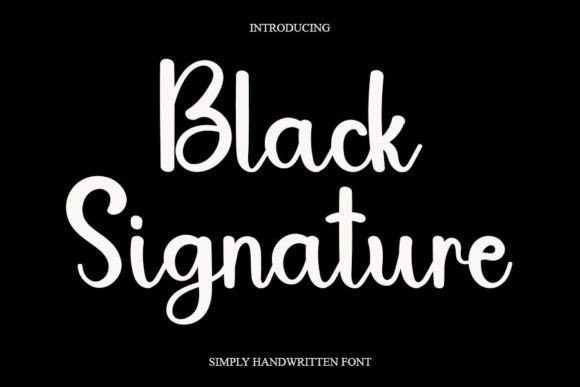
The Magic of Handwritten Fonts: Discovering Black Signature Font
Have you ever found yourself doodling in a notebook, lost in a world of creativity, and suddenly you stumble upon the perfect font? That’s exactly what happened when I discovered the Black Signature Font. Its unique blend of elegance and quirkiness instantly captured my heart, and I knew I had to learn more.
The Black Signature Font is a carefully crafted handwritten font designed to add a personal touch to your designs. Whether you’re working on logos, branding, social media, or crafty DIY projects, this font is the perfect fit. Its clean lines and subtle imperfections make it stand out from the crowd, giving your creations a unique and memorable feel.
As a designer, you understand the value of a font that can elevate your work and make it truly special. That’s why the Black Signature Font is a valuable addition to any designer’s toolkit. Its versatility and charm make it an ideal choice for a wide range of projects, and its unique character is sure to leave a lasting impression.
Key Features of Black Signature Font
- Unique Characteristics: Distinctive, high-contrast design with bold lines and a sleek, modern aesthetic
Black Signature Font Review
Overall, I think the Black Signature Font has a lot of potential, but it’s not without its flaws. Let’s dive in and see what works well and what doesn’t.
- Unique Design: The Black Signature Font has a distinctive, elegant design that sets it apart from more common fonts.
- High-Quality Vectors: The font comes with high-quality vector files, making it easy to resize and manipulate.
- Extensive Character Set: The font includes a wide range of characters, including international characters and symbols.
- Limited Expressiveness: While the font is elegant, it can feel a bit stiff and unexpressive at times.
- No Clear Distinctions: The font doesn’t have a lot of clear distinctions between different weights and styles, making it difficult to use in complex designs.
Overall, I’d say the Black Signature Font is a solid choice for designers who want a unique, elegant font. However, it may not be the best choice for designers who need a lot of flexibility and customization options. With a bit more development, this font could be a real standout in the design community.
Use Black Signature Font for:
- Creating professional business cards and letterheads.
- Designing luxury packaging and branding materials.
- Adding a touch of elegance to your website and social media content.
For the best results, pair Black Signature Font with a clean and modern design aesthetic.